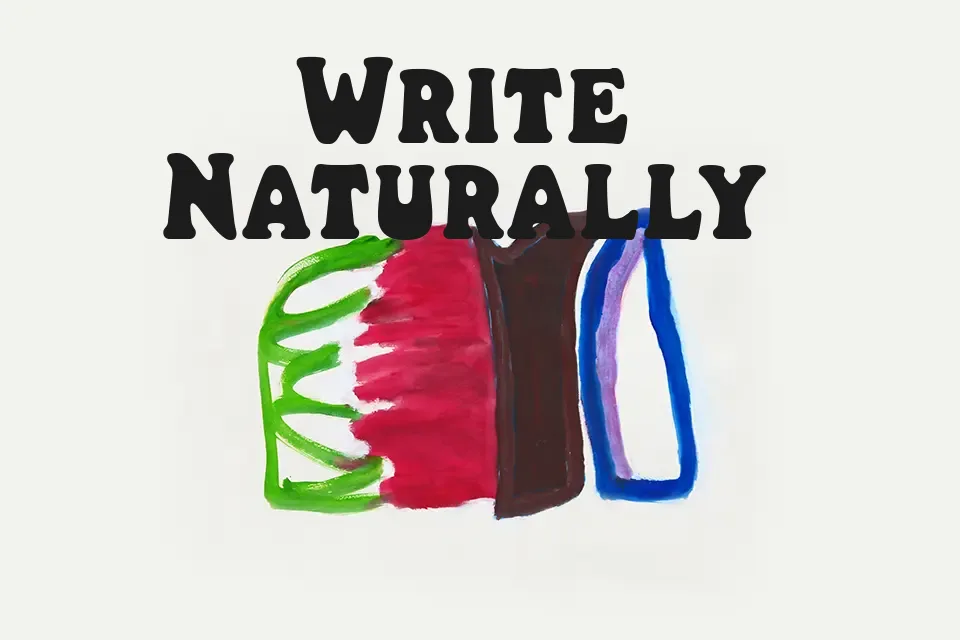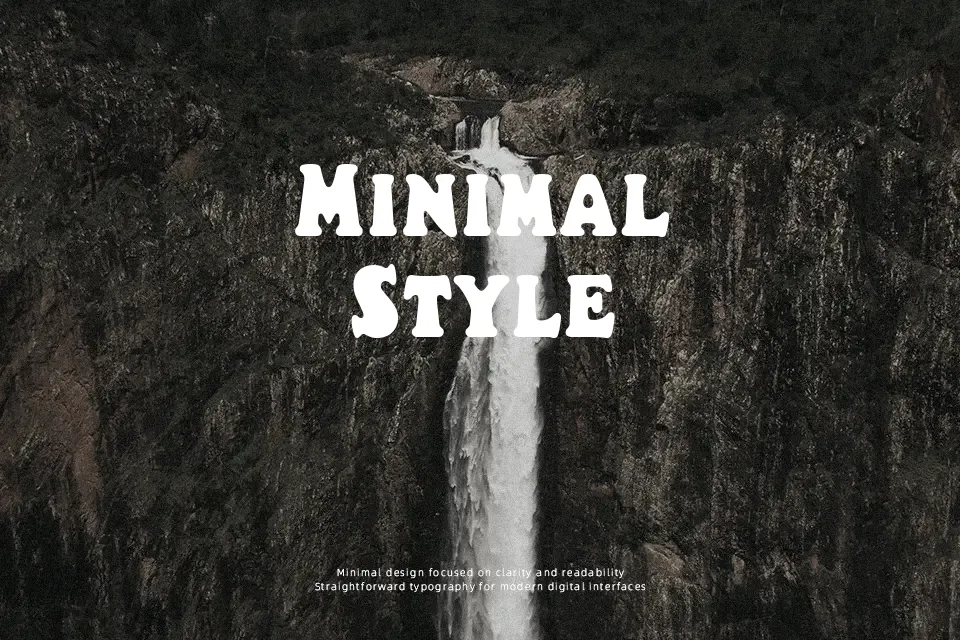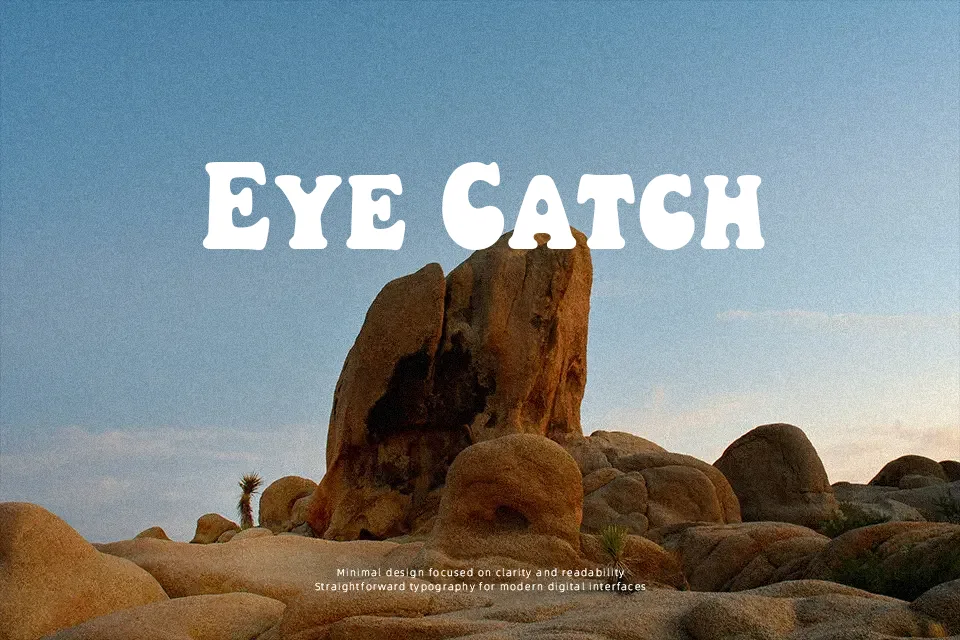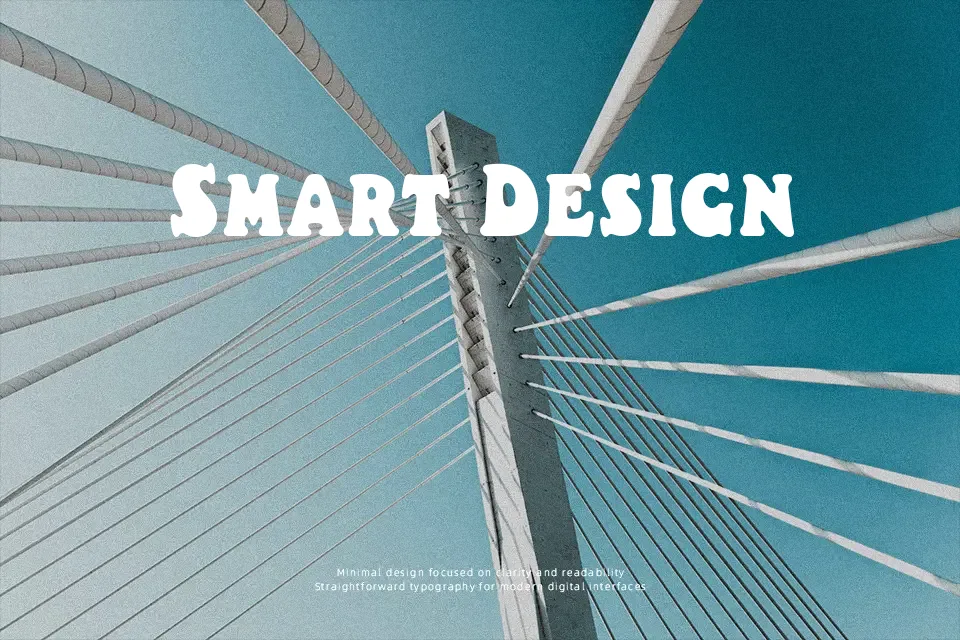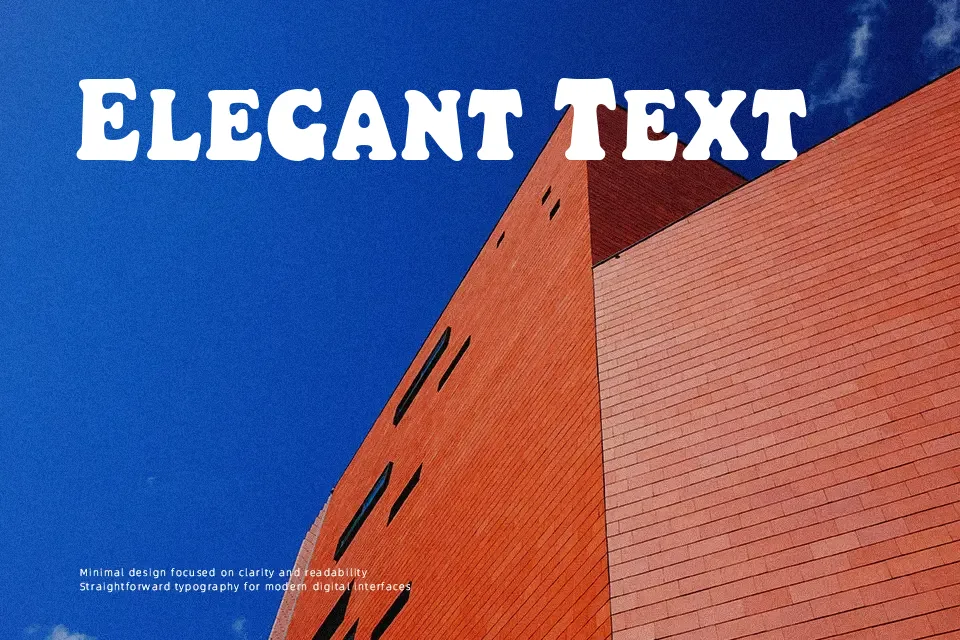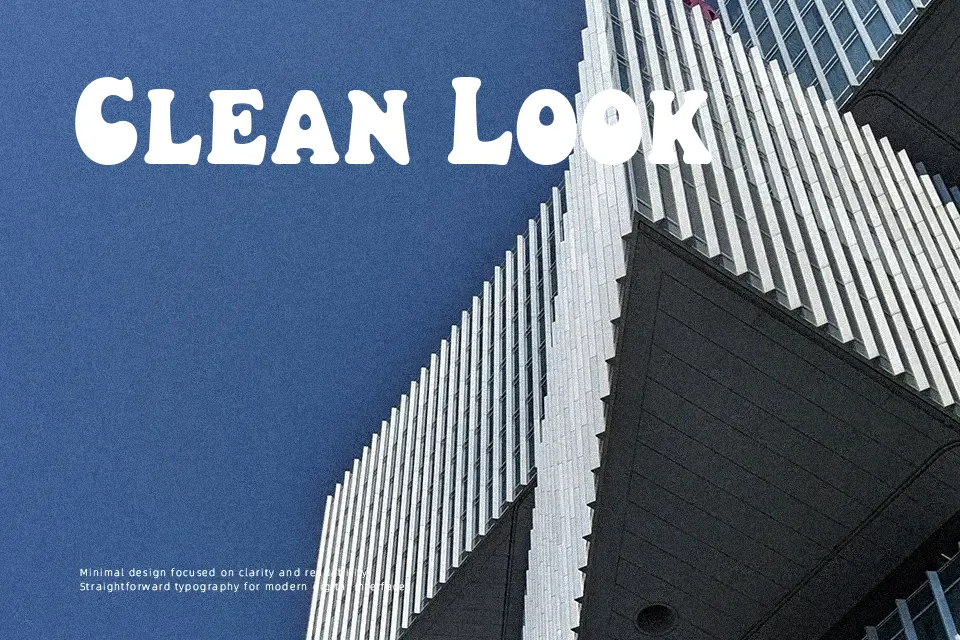
Christmas Pudding Font
Designed by K-Type
Christmas Pudding Font features thick, uniform strokes combined with softened geometric curves and a dedicated small-caps framework. The letterforms exhibit compact horizontal proportions alongside relatively snug letter spacing, creating a dense and punchy visual presence on the page. In large headline settings and vintage food packaging, the typeface delivers immediate character and strong legibility across short phrases. The solid stroke weight helps maintain strong silhouette recognition across printed materials and digital hero banners. However, the heavy mass and reduced internal counter spaces make continuous reading difficult across extended body text. Small captions also lose clarity quickly at reduced scales.
vintage food packaging
holiday poster headlines
retail merchandise labels
festive event banners
technical documentation
mobile interface body copy
dense spreadsheet layouts